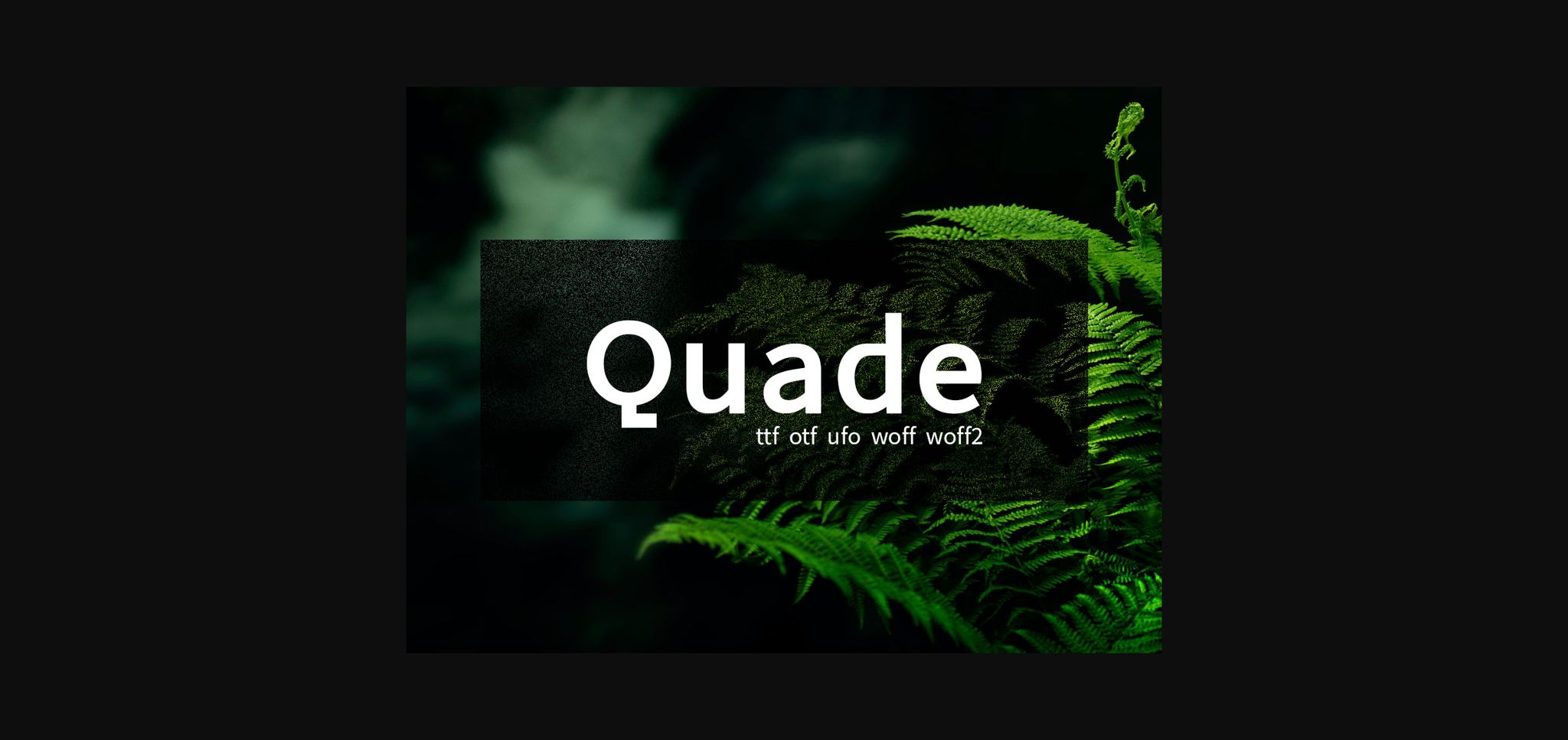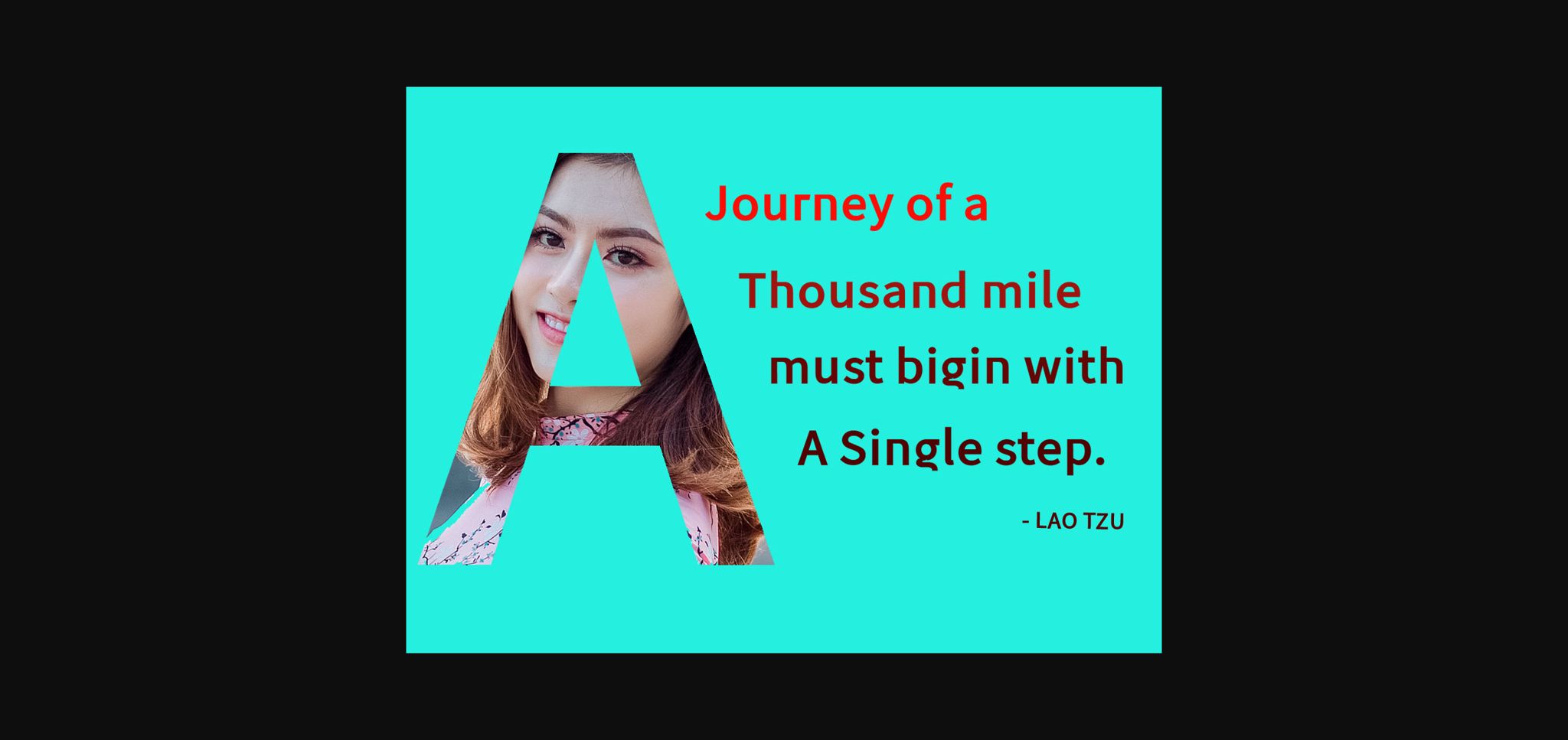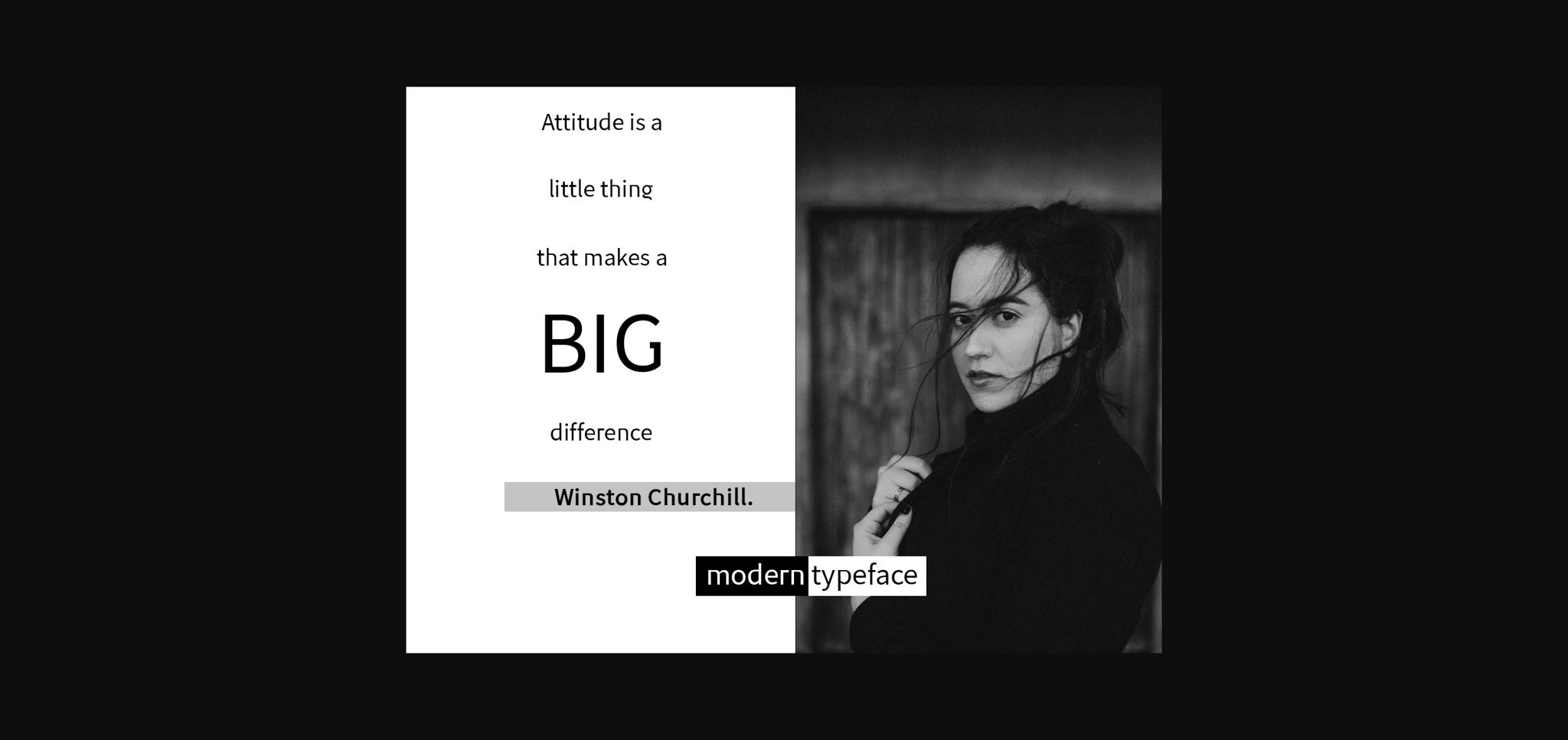
Quade Font
About Quade Font
Quade is a relaxed and simple sans serif font. It is the best choice for creating eye catching logos, branding and quotes.